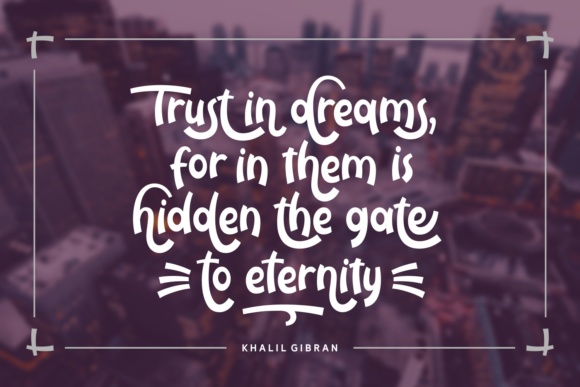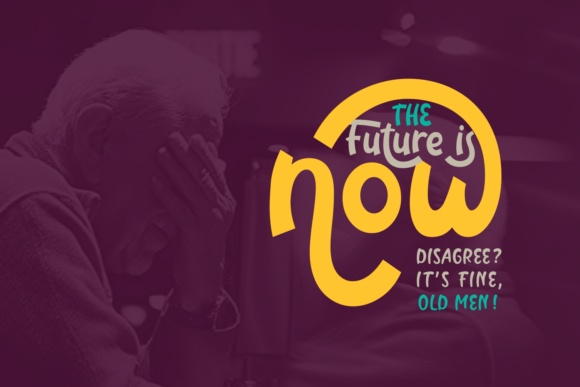
Introduction to Neigfriste Font
Have you ever found yourself stuck in a creative rut, searching for the perfect font to elevate your design project? We’ve all been there. But what if we told you that the key to unlocking your next big idea lies in a single, super jolly display font? Say hello to the Neigfriste Font, a jester-style masterpiece that’s sure to bring a smile to your face and a burst of creativity to your work.
With its stunning bold curves and high-quality design, the Neigfriste Font is the perfect addition to any design resource. Whether you’re working on a free download project or a paid commission, this font is sure to impress. Its transparent background makes it easy to layer and manipulate, allowing you to get the most out of your design.
So why is the Neigfriste Font so valuable for designers? For starters, its unique jester style adds a touch of whimsy and playfulness to any project. Whether you’re designing a logo, a poster, or a website, this font is sure to bring a sense of fun and creativity to the table.
Key Features of Neigfriste Font
- Transparent background for seamless integration into any design
- Includes a wide range of glyphs and characters for versatility
- Designed with a unique aesthetic, perfect for modern and minimalist designs
Honest Review: Neigfriste Font
I recently had the chance to work with the Neigfriste Font for a creative project and I must say it was a pleasant experience. This design resource is definitely worth considering if you’re looking for a high-quality font for your next project.
What works well: ✨ The Neigfriste Font has a unique and modern design that adds a touch of elegance to any text. It’s also available for free download, making it an excellent choice for designers on a budget. The font is highly versatile and can be used for a wide range of creative projects, from brochures to posters.
Some of the key features that I liked about the Neigfriste Font include:
- High-quality design that looks great on both light and dark backgrounds
- Transparent background, making it easy to overlay text on images
However, there are a few limitations: ⚠️ The font may not be suitable for very small text sizes, and it can be a bit difficult to read in certain lighting conditions. Additionally, the font family is relatively small, so you may not have as many options as you would with some other fonts.
Overall, I’m impressed with the Neigfriste Font and would recommend it to designers looking for a high-quality, free design resource. Just be aware of the limitations and use it wisely.
Use the Neigfriste Font for headings, titles, or any element that needs a touch of elegance and sophistication.
Common Use Cases for Neigfriste Font
Use the Neigfriste Font for:
Brochures and flyers
Business cards and letterheads
Wedding invitations and event materials